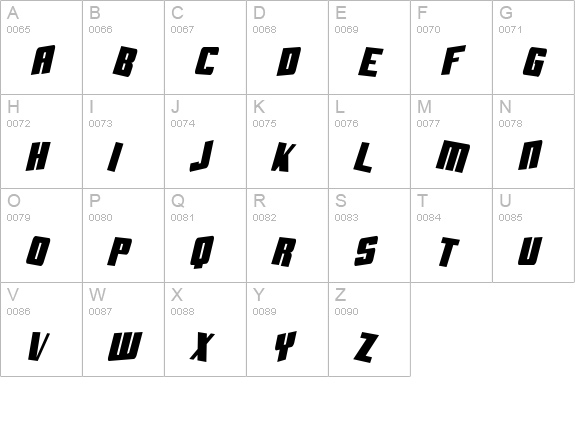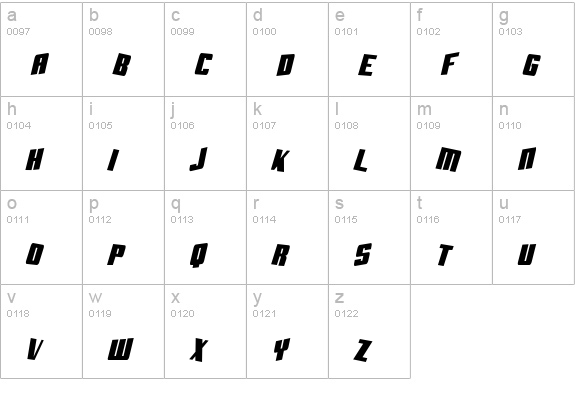
Aftershock Debris CondSolid Italic is a distinctive, italic variant in the Aftershock typeface family \xE2\x80\x94 well suited to design and typography projects.
Aftershock Debris CondSolid Italic is a bold and dynamic font that exudes strength and resilience. Its sharp angles and rugged appearance make it ideal for projects that require a powerful and impactful typeface. This font is perfect for creating eye-catching headlines, posters, and logos that demand attention. Best of all, Aftershock Debris CondSolid Italic is available for free download at FontsMarket.com. Whether you're a designer looking to add a unique touch to your projects or a hobbyist wanting to experiment with different fonts, this versatile typeface is a great addition to your font library. Don't miss out on the opportunity to enhance your designs with this striking and distinctive font - download Aftershock Debris CondSolid Italic today!